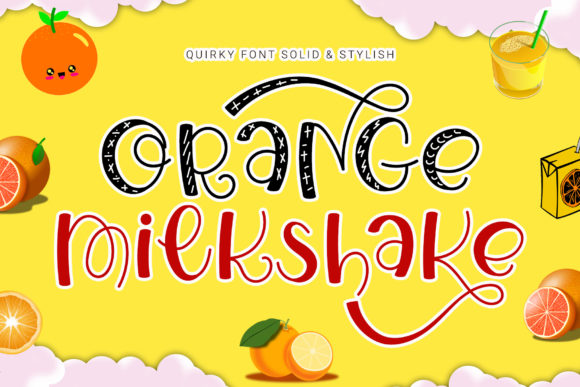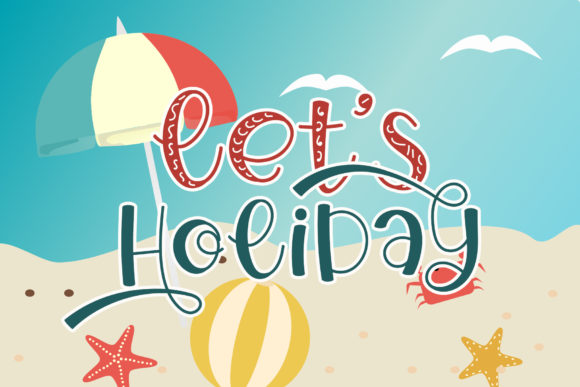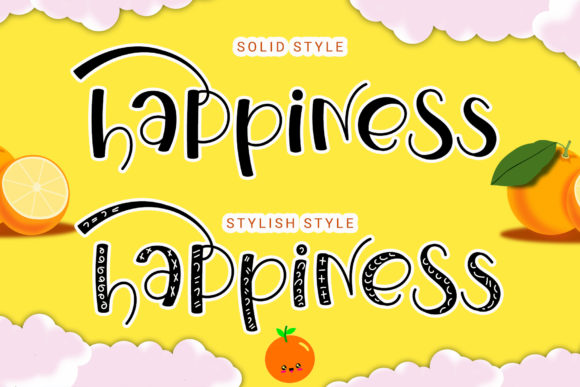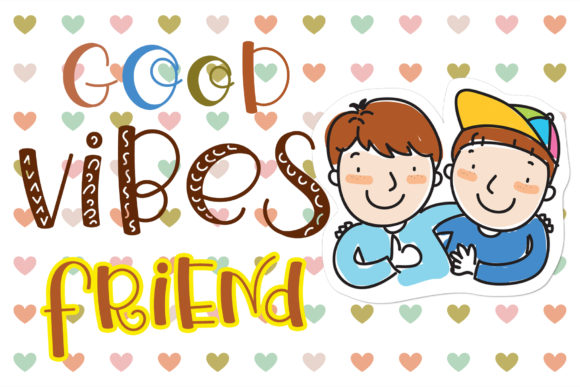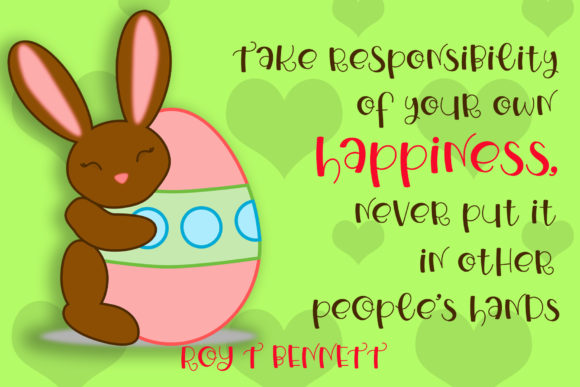
Orange Milkshake Font
About Orange Milkshake Font
Orange Milkshake looks bold, yet sophisticated and features chunky and extended characters that will look particularly adept when used in logos, branding, packaging design, and much more. This masterfully designed script is a true must-have.